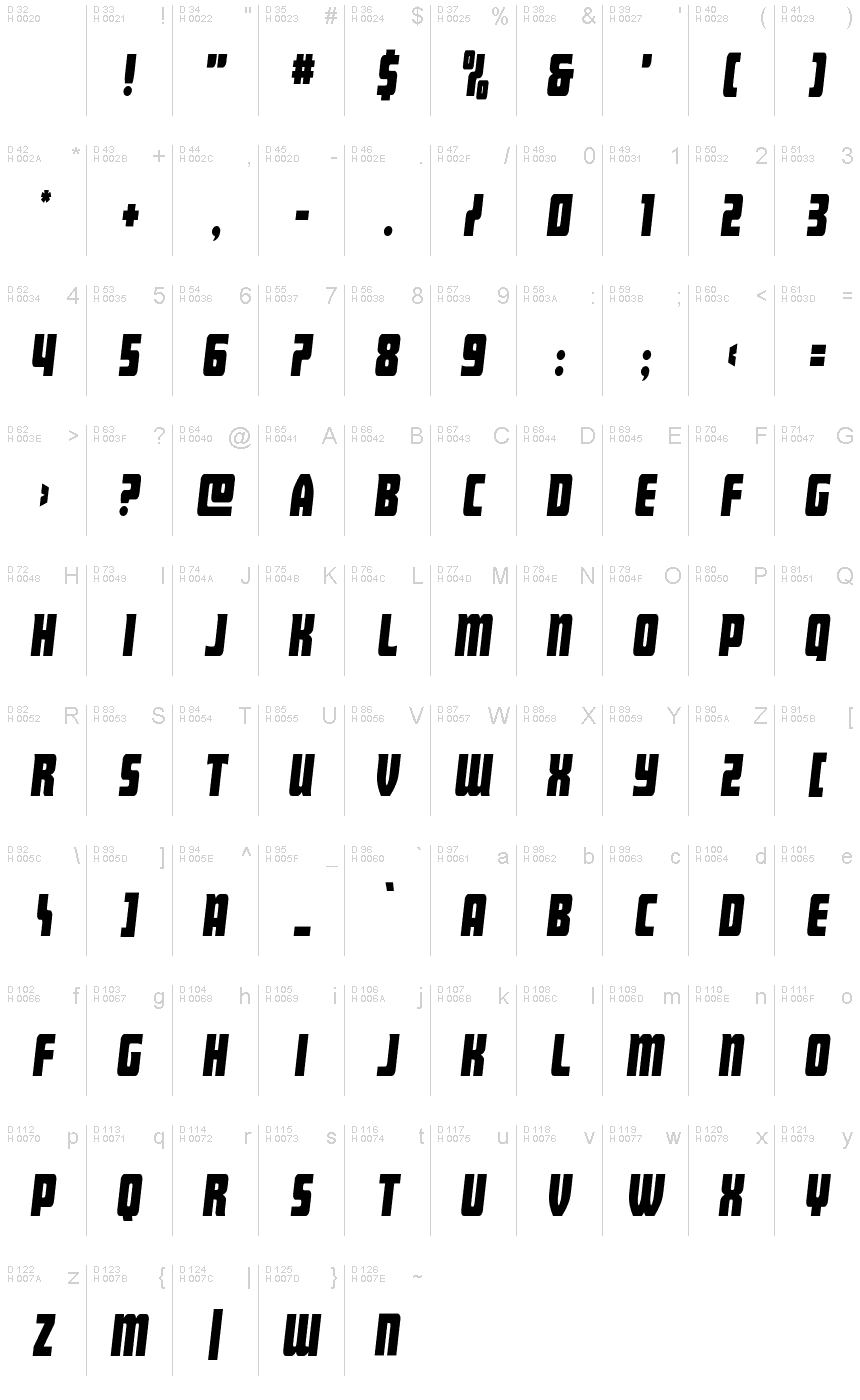
Intrepid Spear Condensed
Intrepid Spear Condensed is a bold statement in the landscape of display fonts, meticulously crafted by Iconian Fonts. With its assertive techno style and extra-condensed width, this font exudes a modern, cutting-edge vibe that instantly captures attention. The Intrepid Spear family's distinctive aesthetic is characterized by a robust weight and sharp geometric structure, making it an ideal choice for projects where impact and readability are paramount.
The font's versatility shines through its two sub-families: Regular and Lower Case, offering designers flexibility in application while maintaining visual coherence. Whether deployed on poster designs, branding initiatives, or digital interfaces, Intrepid Spear Condensed stands out for its precision-engineered letterforms that communicate with clarity and futuristic flair.
Embrace the power of Intrepid Spear Condensed to deliver messages with authority and style in your next creative endeavor.
The font's versatility shines through its two sub-families: Regular and Lower Case, offering designers flexibility in application while maintaining visual coherence. Whether deployed on poster designs, branding initiatives, or digital interfaces, Intrepid Spear Condensed stands out for its precision-engineered letterforms that communicate with clarity and futuristic flair.
Embrace the power of Intrepid Spear Condensed to deliver messages with authority and style in your next creative endeavor.